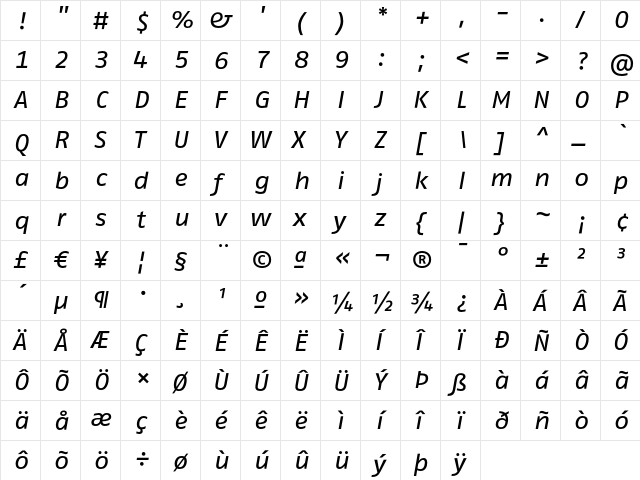
FagoExTf Italic
Design Context for FagoExTf Typeface
FagoExTf takes a measured approach to typography — its balanced proportions and neutral character make it a reliable workhorse for both digital and print work. The slanted form adds forward momentum and visual energy.
Pro Tip: Use FagoExTf for emphasis, pull quotes, and subheadings where its slanted energy can add rhythm to the layout.